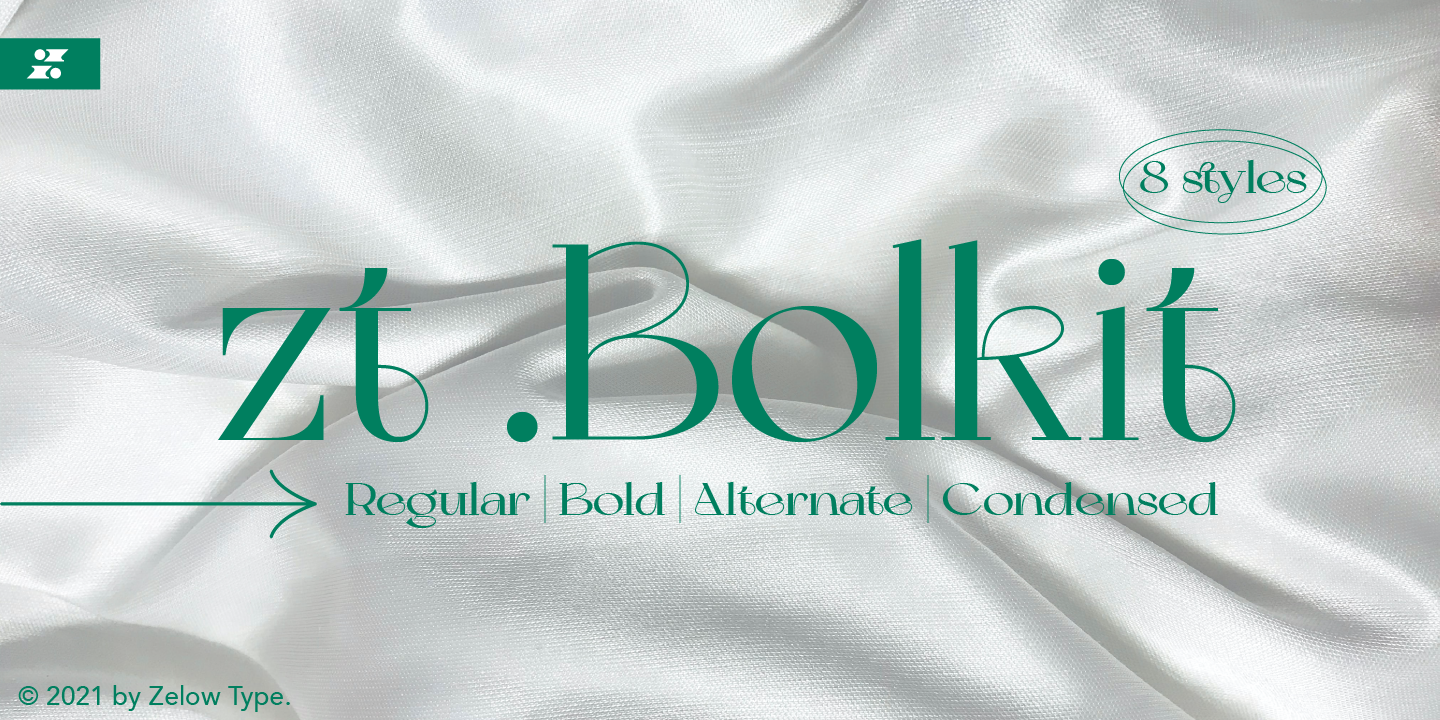
Bolkit Font is perfectly suited for logo design, branding projects, packaging design, poster creation, book covers, magazine layouts, digital marketing materials, social media graphics, and modern advertising campaigns.
Bolkit Font delivers an exciting visual experience with its bold geometric structure and contemporary appeal. This font captures attention immediately with its strong character definition and versatile design elements that make any project stand out from the competition.
Bolkit Font family includes multiple weights and styles: Regular, Bold, Light, Medium, Black, and Italic variations. Each weight maintains the distinctive character while offering flexibility for different design requirements and hierarchical text structures.
The clean lines and modern aesthetic of Bolkit Font Free Download make it an essential addition to any designer's toolkit. Whether you're creating corporate identities, editorial designs, or digital interfaces, this typeface provides the perfect balance between readability and visual impact. The font's geometric foundation ensures consistent performance across both print and digital applications.
Professional designers consistently choose Bolkit Font for projects requiring contemporary sophistication. Its versatile nature allows seamless integration into minimalist designs while maintaining strong presence in bold applications. The font's technical precision and artistic flair create memorable typography that resonates with modern audiences.